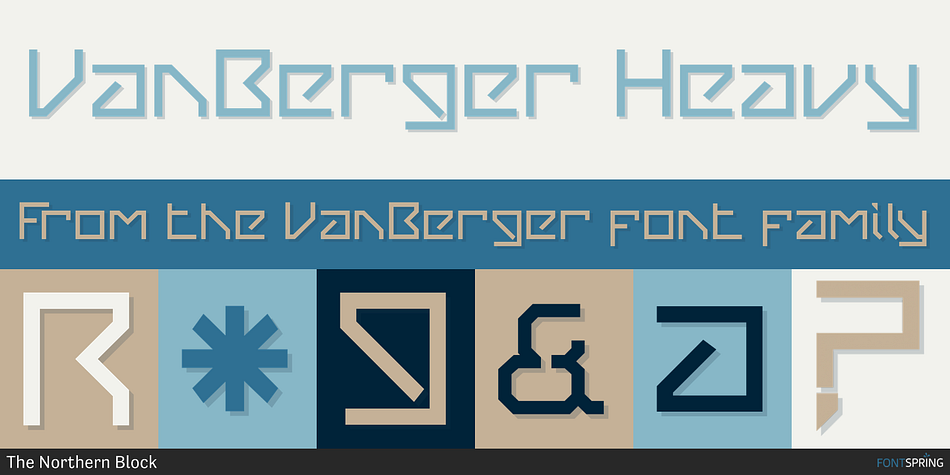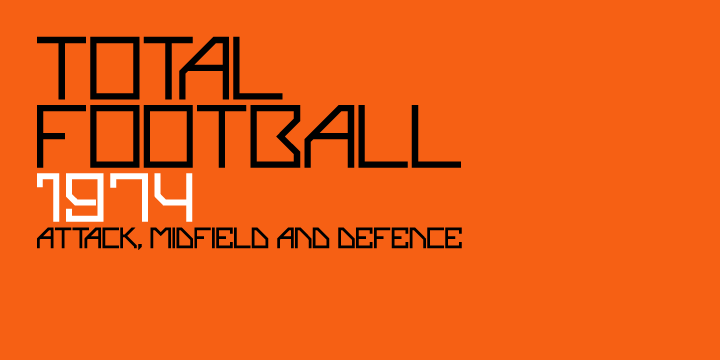
VanBerger is a display and stencil font family. This typeface has six styles and was published by The Northern Block.
VanBerger Heavy
A geometric san serif typeface influenced by Theo Van Doesburg and the De Stijl movement.